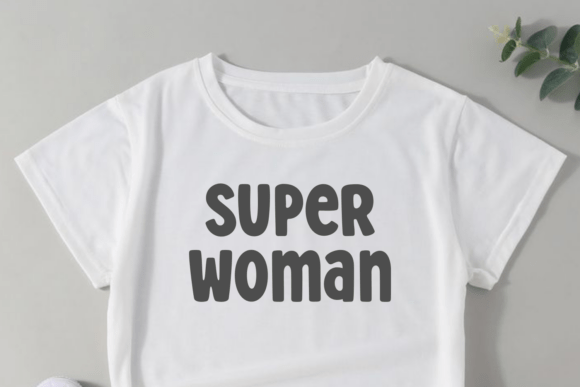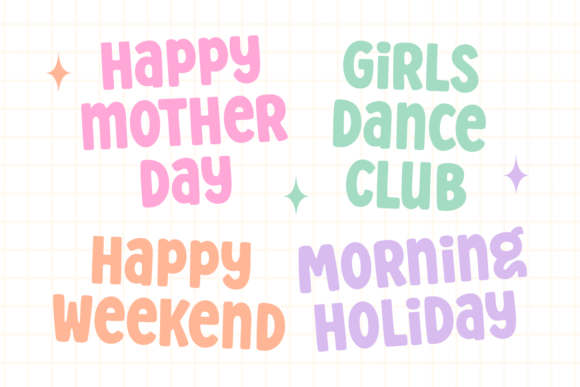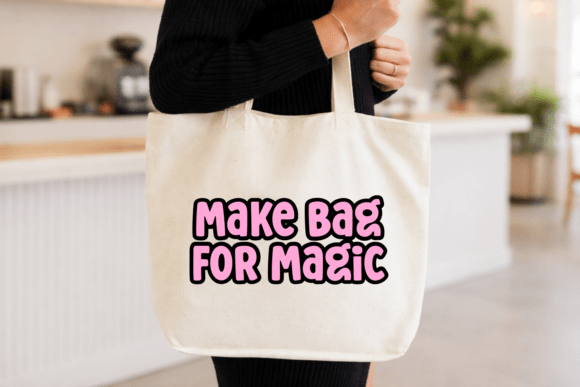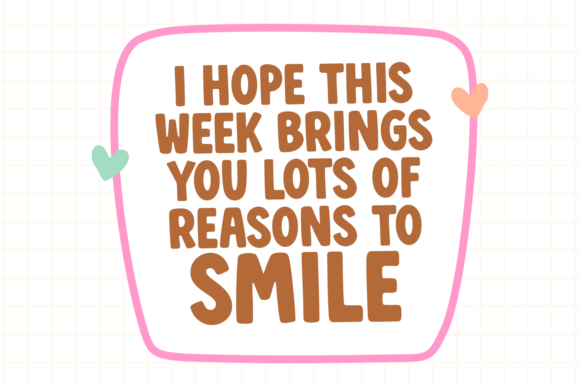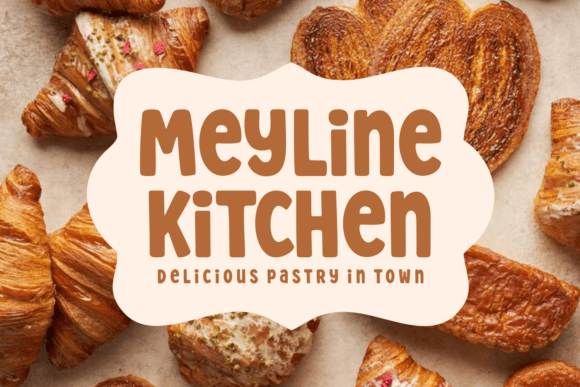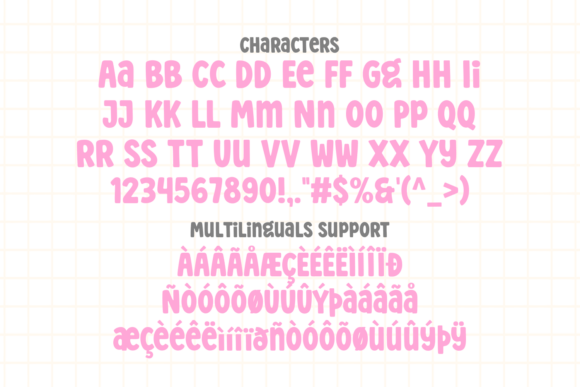
Candies Font: The Sweetest Addition to Your Design Collection
Are you looking for a font that can add a dash of fun and excitement to your designs? Look no further than Candies, a vibrant sans serif font that’s bursting with life, color, and energy! This whimsical font is perfect for designers and crafters who want to infuse their work with a joyful vibe.
The Characteristics of Candies Font
Candies font is a bold and curvaceous sans serif font with a lighthearted soul. Its soft contours and thick, recognizable letters make it incredibly user-friendly, balancing readability with a spirited and expressive appeal. The font’s design is inspired by delectable sweets and blissful moments, making it an ideal choice for designs that require a playful and cheerful touch.
Perfect for Designs Targeting Children and Festive Occasions
Candies font is particularly suitable for designs targeting children, festive invitations, fresh branding, eye-grabbing packaging, engaging posters, and dynamic social media graphics. The font’s exuberant and amiable aesthetic makes it perfect for tasks demanding a brilliant and vigorous flair. Whether your project revolves around children’s designs, lively events, or striking brand visuals, Candies effortlessly infuses your work with unique, radiant enchantment.
Use Cases for Candies Font
So, what can you use Candies font for? The possibilities are endless! Here are a few ideas to get you started:
- Children’s designs: Candies font is perfect for designing materials for kids, such as books, games, and educational resources.
- Festive invitations: Add a touch of fun and excitement to your party invitations, holiday cards, and other festive designs.
- Branding: Use Candies font to create fresh and playful brand visuals that will appeal to a young audience.
- Packaging: Make your product packaging stand out with Candies font, perfect for food, toys, and other fun products.
- Posters and social media graphics: Create eye-grabbing posters and dynamic social media graphics that will grab the attention of your audience.
Why Choose Candies Font?
So, why should you choose Candies font for your next design project? Here are just a few reasons:
- Unique and playful design: Candies font has a one-of-a-kind design that’s sure to make your work stand out.
- Highly readable: Despite its playful design, Candies font is incredibly readable, making it perfect for body text and headlines.
- Versatile: Candies font can be used for a wide range of design projects, from children’s designs to festive invitations and branding.
- Easy to use: Candies font is incredibly easy to use, making it perfect for designers and crafters of all skill levels.
Tips for Using Candies Font
Here are a few tips for getting the most out of Candies font:
- Experiment with colors: Candies font is perfect for designs that require a bold and bright color scheme.
- Play with sizes: Candies font looks great in a variety of sizes, from large headlines to smaller body text.
- Mix and match: Try pairing Candies font with other fonts to create a unique and interesting design.
- Have fun: Most importantly, have fun with Candies font! Its playful design is perfect for adding a touch of whimsy to your work.
In conclusion, Candies font is a vibrant and playful sans serif font that’s perfect for designers and crafters who want to add a dash of fun and excitement to their work. With its unique and playful design, high readability, and versatility, Candies font is an excellent choice for a wide range of design projects. So why not give Candies font a try and see how it can infuse your work with unique, radiant enchantment?